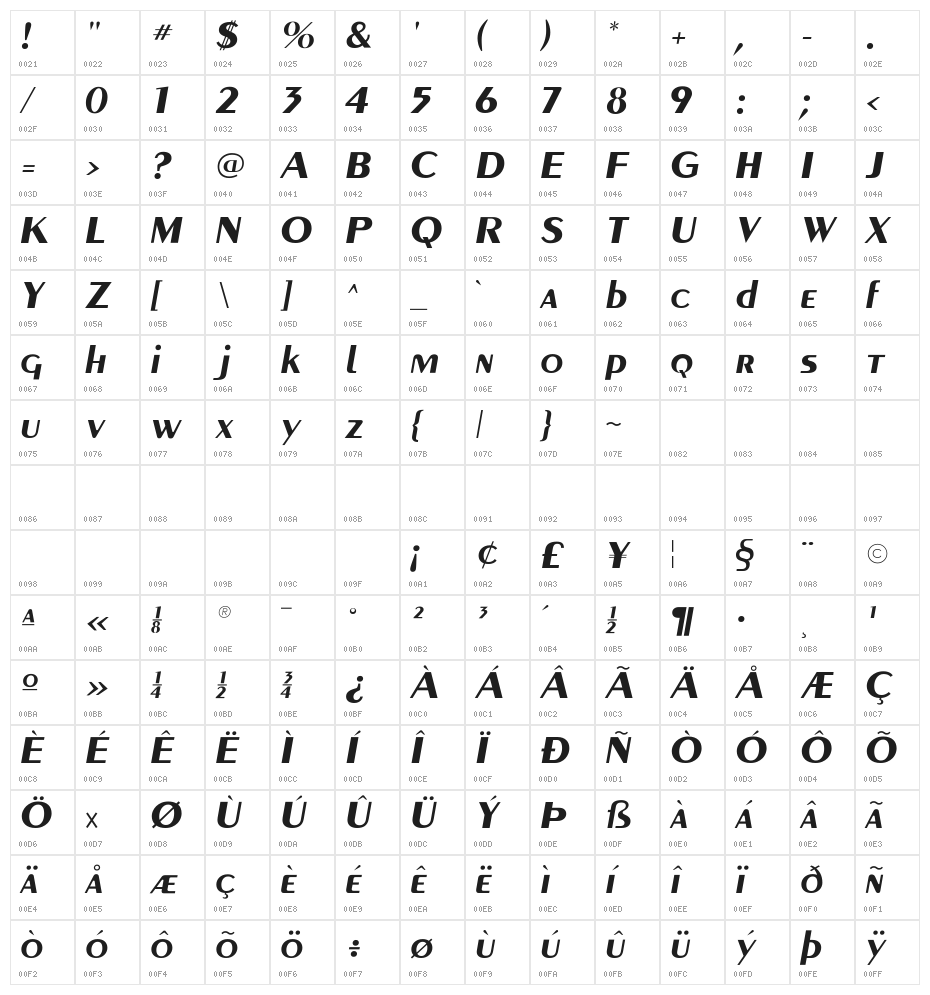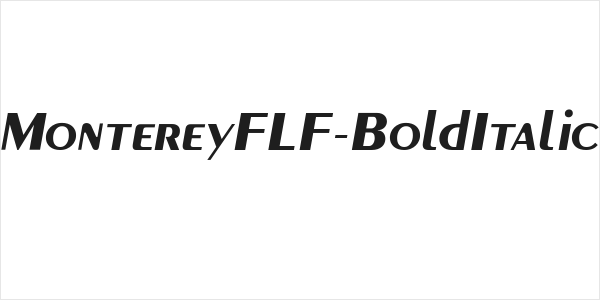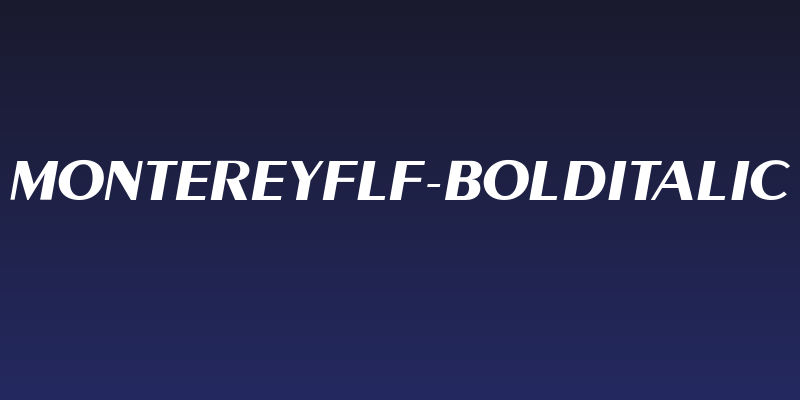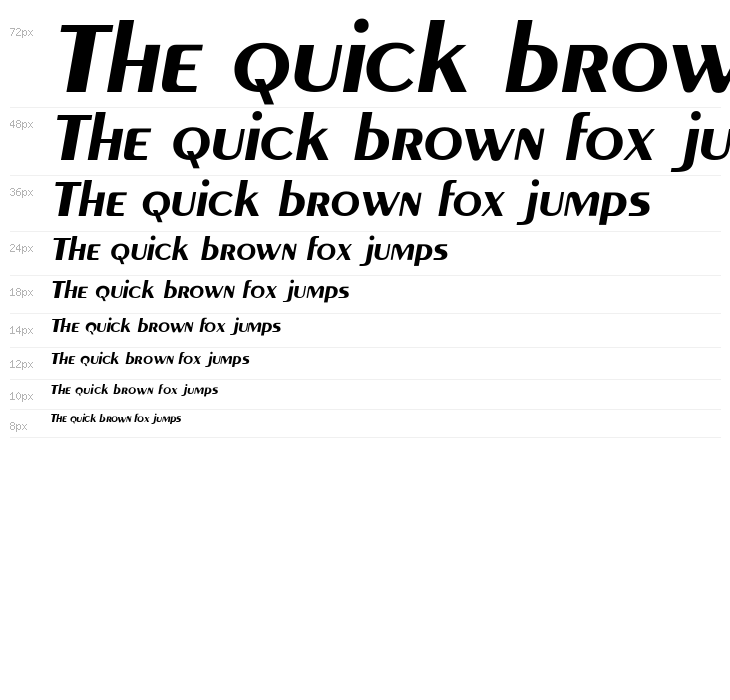
MontereyFLF-BoldItalic Font
MontereyFLF-BoldItalic Description
This font features a bold and italicized style, characterized by its dynamic and forward-leaning posture. The strokes are thick and consistent, providing a strong visual impact. The uppercase letters are slightly taller than the lowercase, with a noticeable slant that adds a sense of motion and urgency. The numerals are equally bold, maintaining the same italicized angle, which ensures uniformity across different types of text. Special characters are well-defined and maintain the same stylistic features, making them easily recognizable. Overall, this font combines boldness with elegance, making it suitable for attention-grabbing designs.
| Proposed Projects | Ideal for headlines, posters, branding materials, and any design requiring a strong, impactful typeface. |